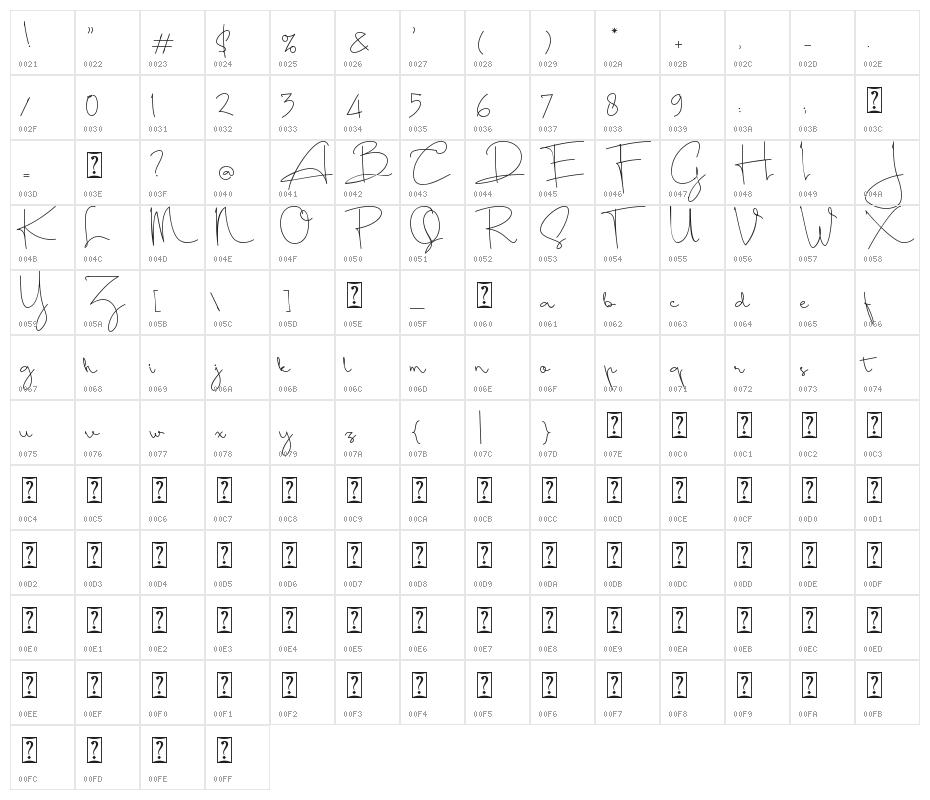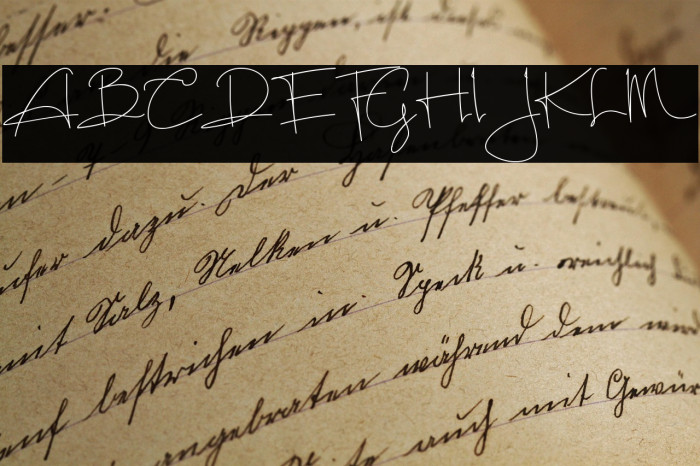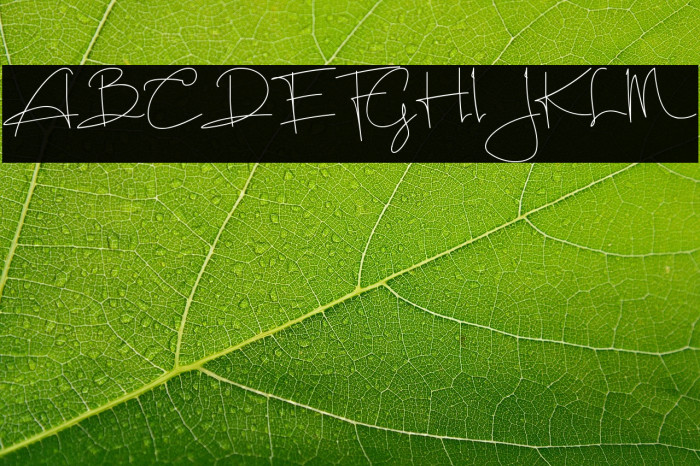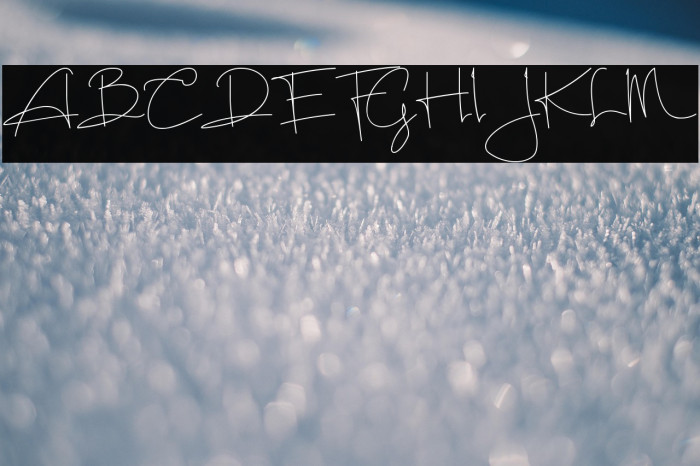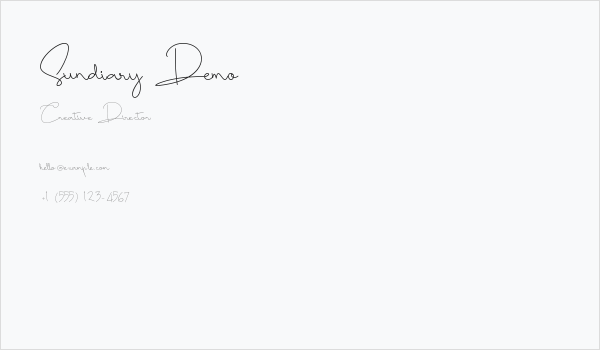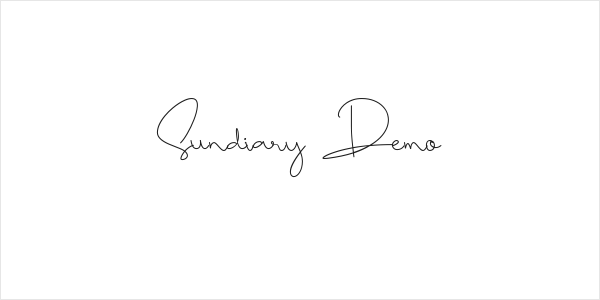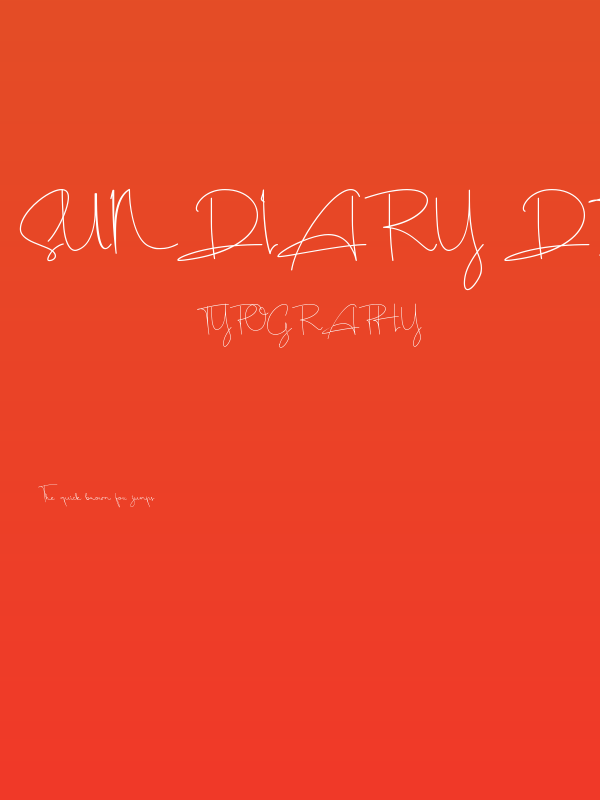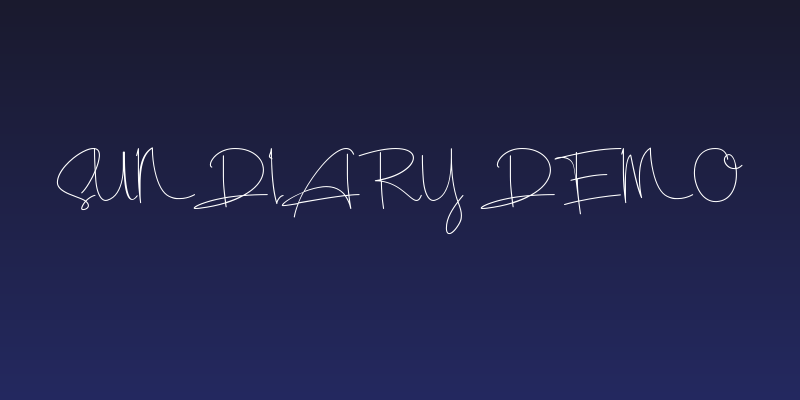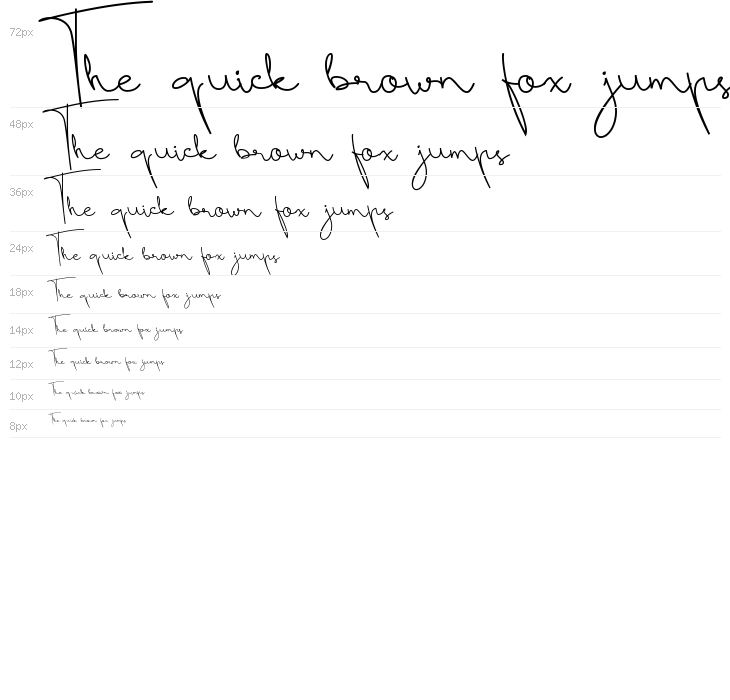
Sundiary Demo Font
Sundiary Demo Description
This font features a whimsical and flowing script style, characterized by its elegant, handwritten appearance. The uppercase letters are tall and slender, with a playful, airy quality that gives them a sense of movement. The lowercase letters maintain a consistent flow, with smooth, looping connections that enhance its cursive nature. Numbers and special characters are crafted with the same fluidity, ensuring a cohesive look across all elements. The overall design is both sophisticated and approachable, making it suitable for a variety of creative applications.
Proposed ProjectsIdeal for wedding invitations, greeting cards, personal branding, and creative projects that require a touch of elegance and personality.